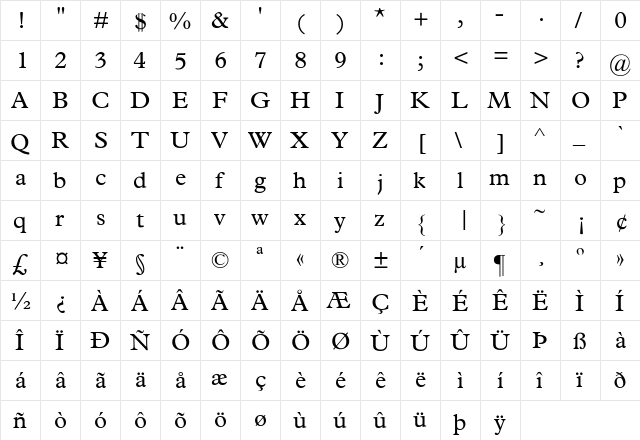
MPlantin Regular Font Preview
MPlantin Regular
Design Context for MPlantin Typeface
MPlantin takes a measured approach to typography — its balanced proportions and neutral character make it a reliable workhorse for both digital and print work.
Pro Tip: Use MPlantin in both headline and body roles to test its range before committing to a single application.